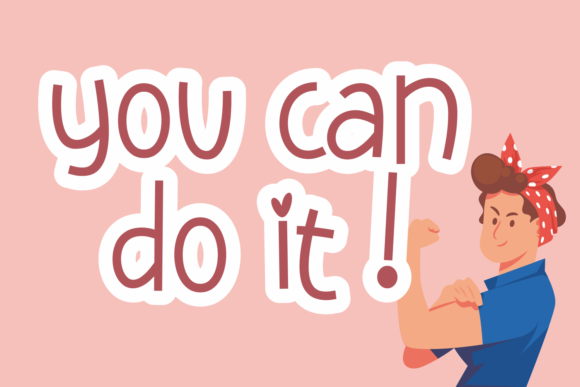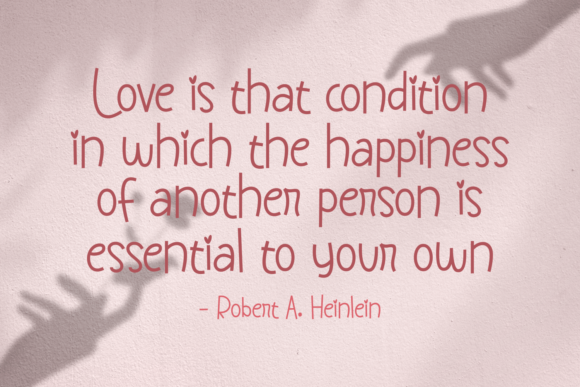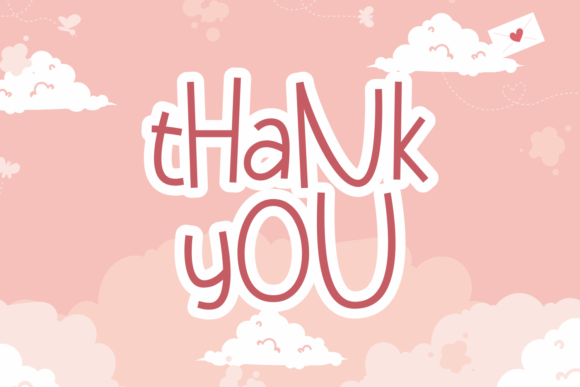
Cynthialia Font: The Perfect Choice for Romantic and Whimsical Designs
Are you looking for a font that can add a touch of romance and whimsy to your designs? Look no further than Cynthialia Font! This adorable display font is perfect for creating beautiful and eye-catching designs for various occasions. In this article, we’ll take a closer look at Cynthialia Font and explore its features, uses, and benefits.
What is Cynthialia Font?
Cynthialia Font is a cute display font that features a thin character set and little heart details. Its delicate and elegant design makes it perfect for creating romantic and whimsical designs. The font is designed to be versatile and can be used for a wide range of projects, from romantic cards and wedding invitations to posters, quotes, headlines, fashion designs, and magazines.
Key Features of Cynthialia Font
So, what makes Cynthialia Font so special? Here are some of its key features:
- Thin character set: Cynthialia Font features a thin character set that gives it a delicate and elegant look.
- Little heart details: The font includes little heart details that add a touch of romance and whimsy to your designs.
- Cute and playful design: Cynthialia Font has a cute and playful design that makes it perfect for creating eye-catching and engaging designs.
- Versatile: The font is versatile and can be used for a wide range of projects, from romantic cards and wedding invitations to posters, quotes, headlines, fashion designs, and magazines.
Uses of Cynthialia Font
Cynthialia Font is perfect for designers and crafters who want to create beautiful and eye-catching designs for various occasions. Here are some of the uses of Cynthialia Font:
- Romantic cards: Cynthialia Font is perfect for creating romantic cards for special occasions like Valentine’s Day, anniversaries, and weddings.
- Wedding invitations: The font is also great for creating beautiful and elegant wedding invitations.
- Posters: Cynthialia Font can be used to create eye-catching posters for various occasions, including concerts, festivals, and events.
- Quotes: The font is perfect for creating inspirational and motivational quotes that can be shared on social media or used in designs.
- Headlines: Cynthialia Font can be used to create beautiful and eye-catching headlines for magazines, newspapers, and websites.
- Fashion designs: The font is also great for creating fashion designs, including logos, labels, and packaging.
- Magazines: Cynthialia Font can be used to create beautiful and engaging magazines for various industries, including fashion, beauty, and lifestyle.
Benefits of Using Cynthialia Font
So, why should you use Cynthialia Font for your designs? Here are some of the benefits of using this adorable font:
- Unique and eye-catching designs: Cynthialia Font allows you to create unique and eye-catching designs that will stand out from the crowd.
- Romantic and whimsical touch: The font adds a romantic and whimsical touch to your designs, making them perfect for special occasions.
- Versatile: Cynthialia Font is versatile and can be used for a wide range of projects, making it a great addition to your font collection.
Cynthialia Font is a beautiful and versatile font that is perfect for designers and crafters who want to create romantic and whimsical designs. With its thin character set and little heart details, this font is sure to add a touch of elegance and playfulness to your designs. Whether you’re creating romantic cards, wedding invitations, posters, quotes, headlines, fashion designs, or magazines, Cynthialia Font is the perfect choice. So, grab it now and start creating beautiful and eye-catching designs!